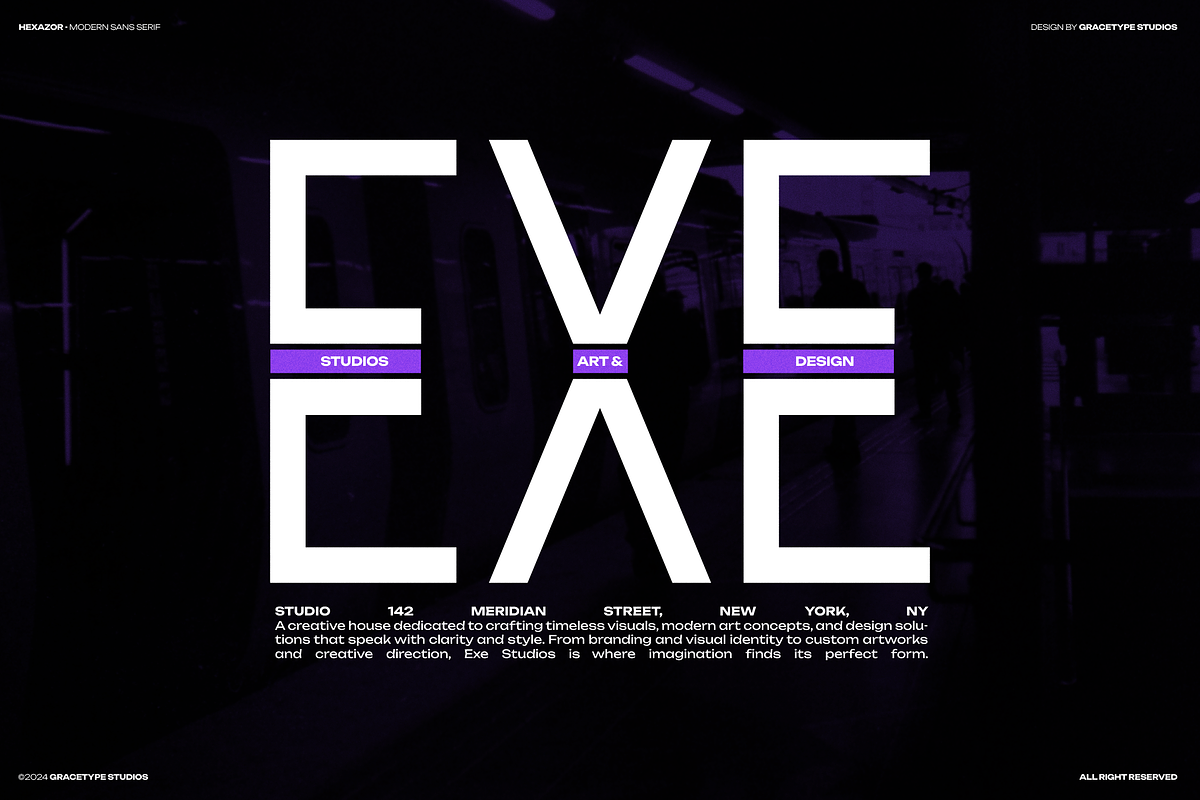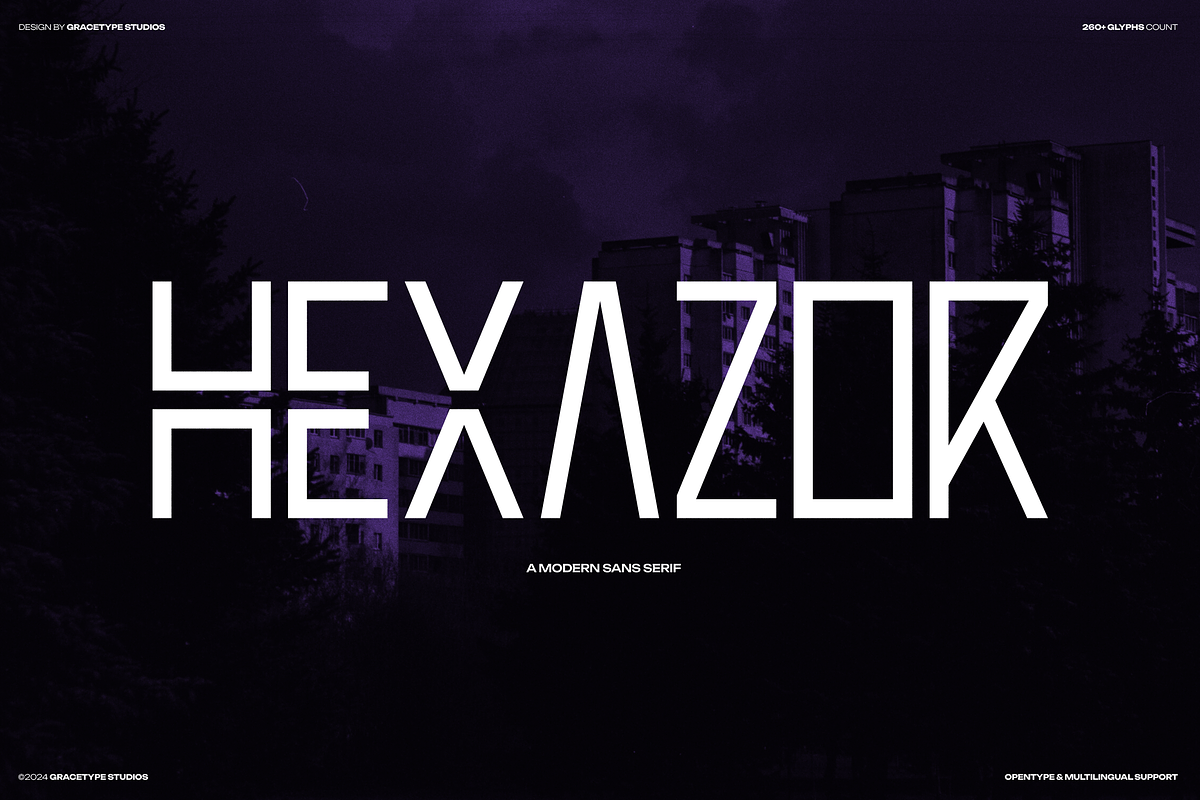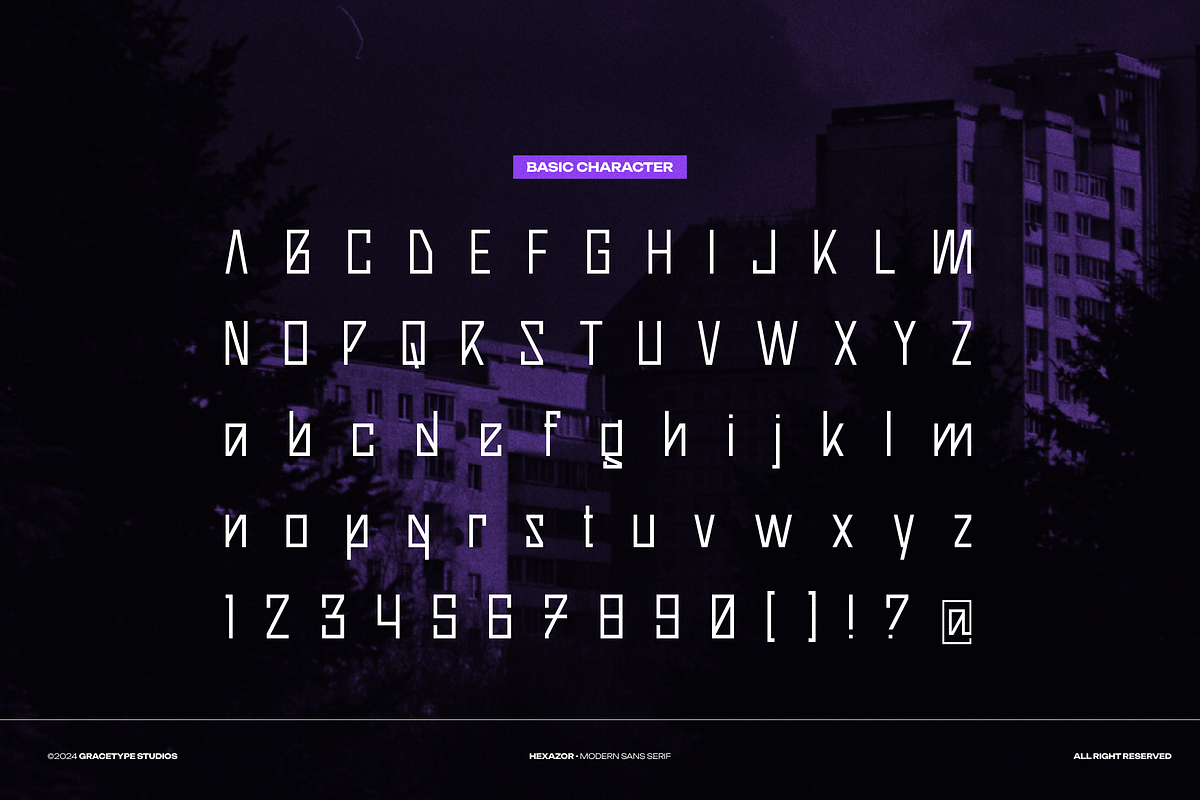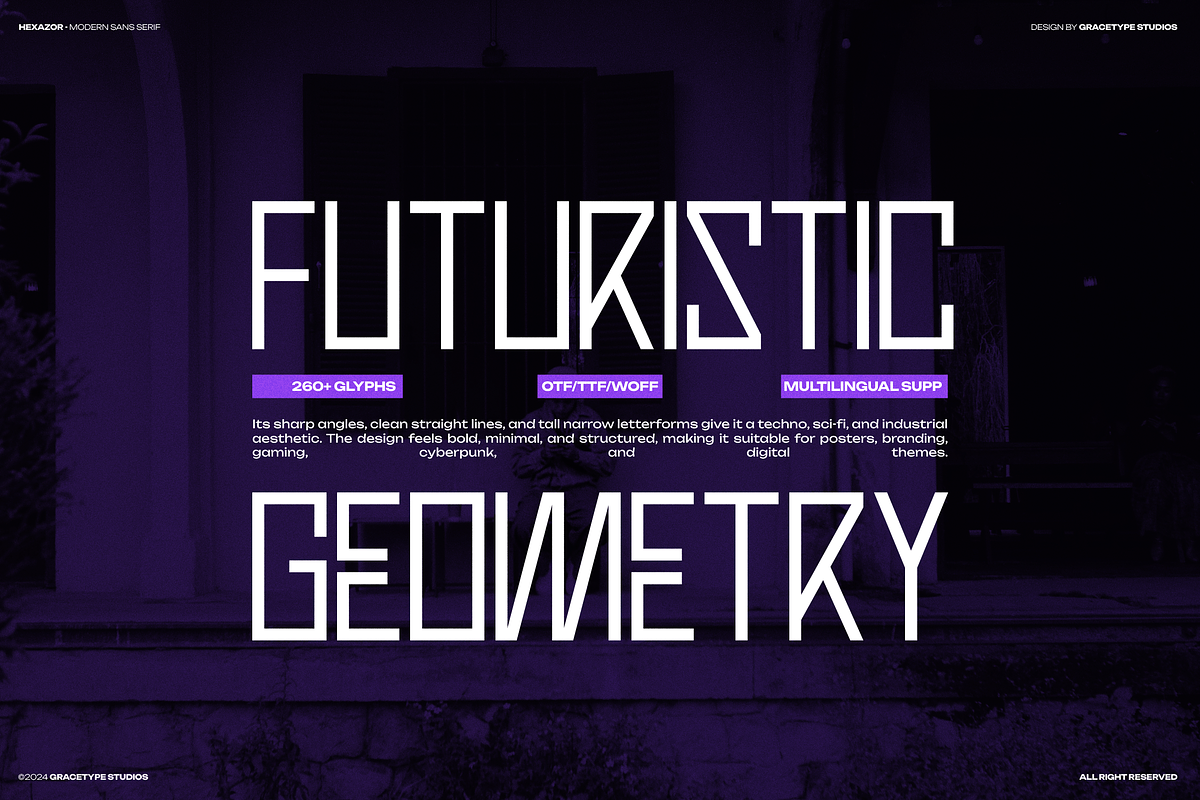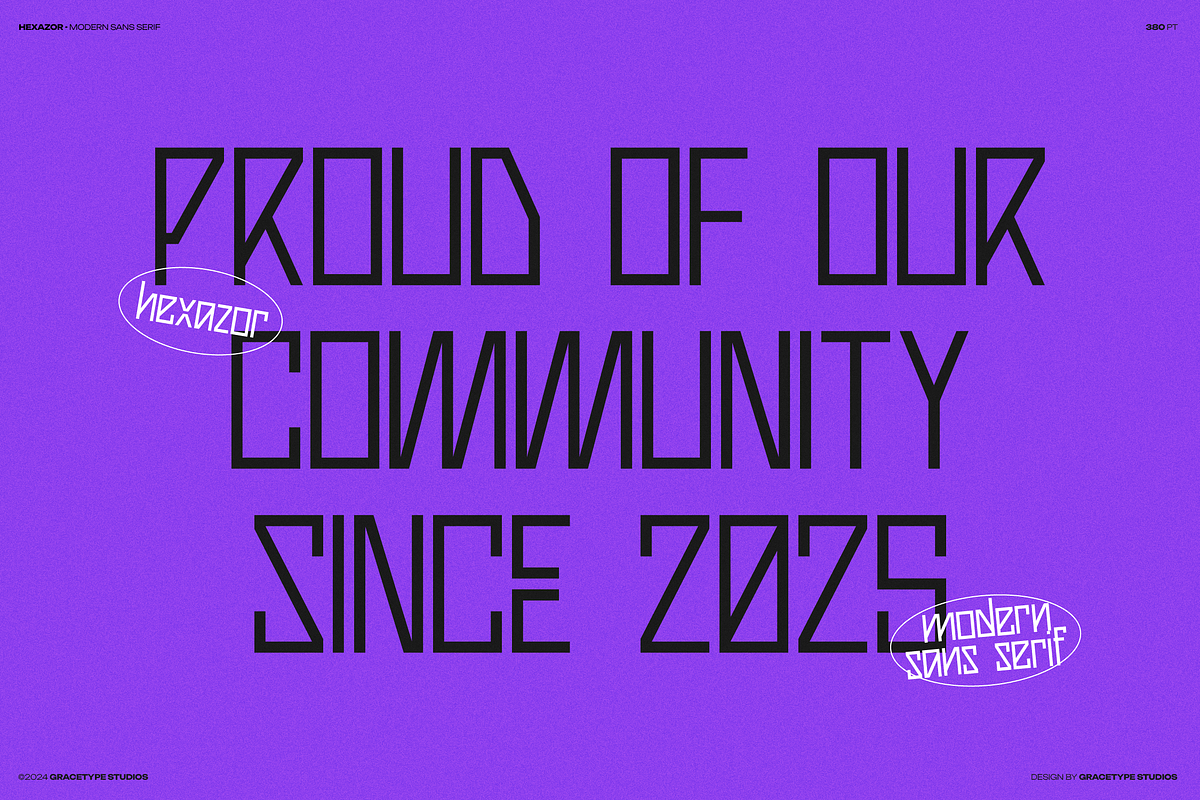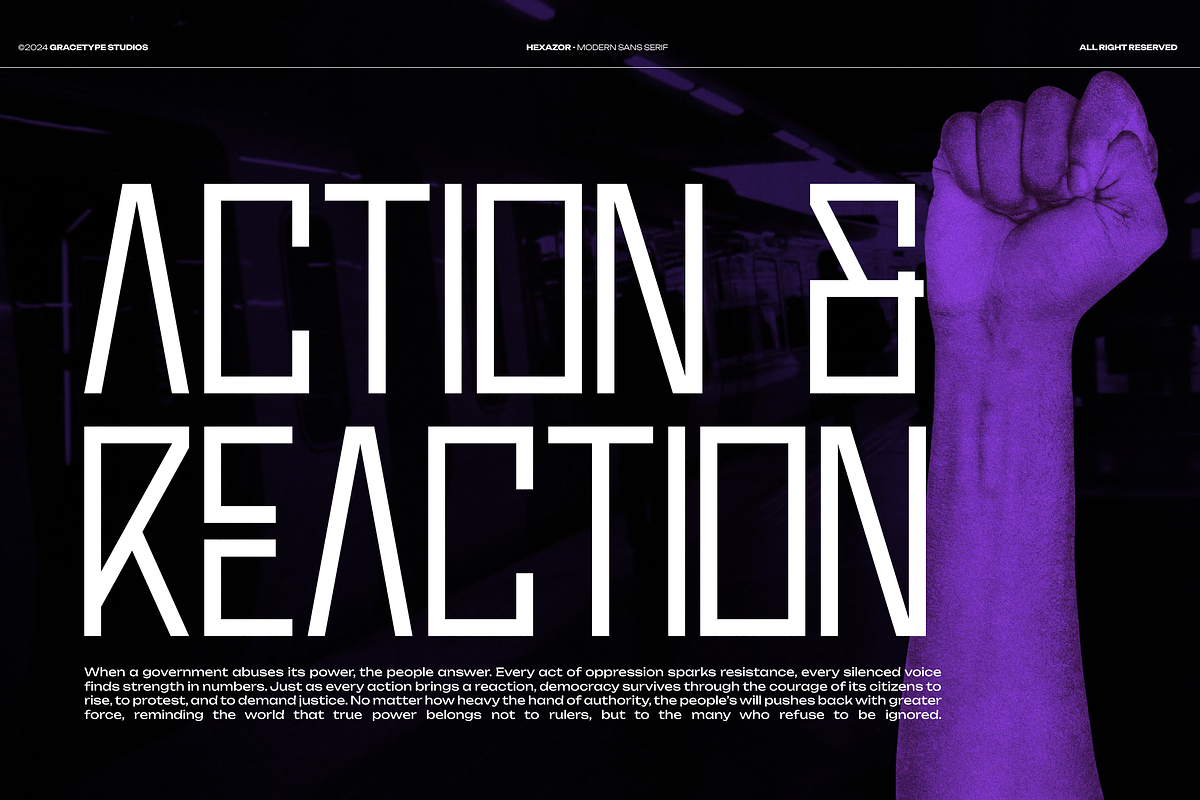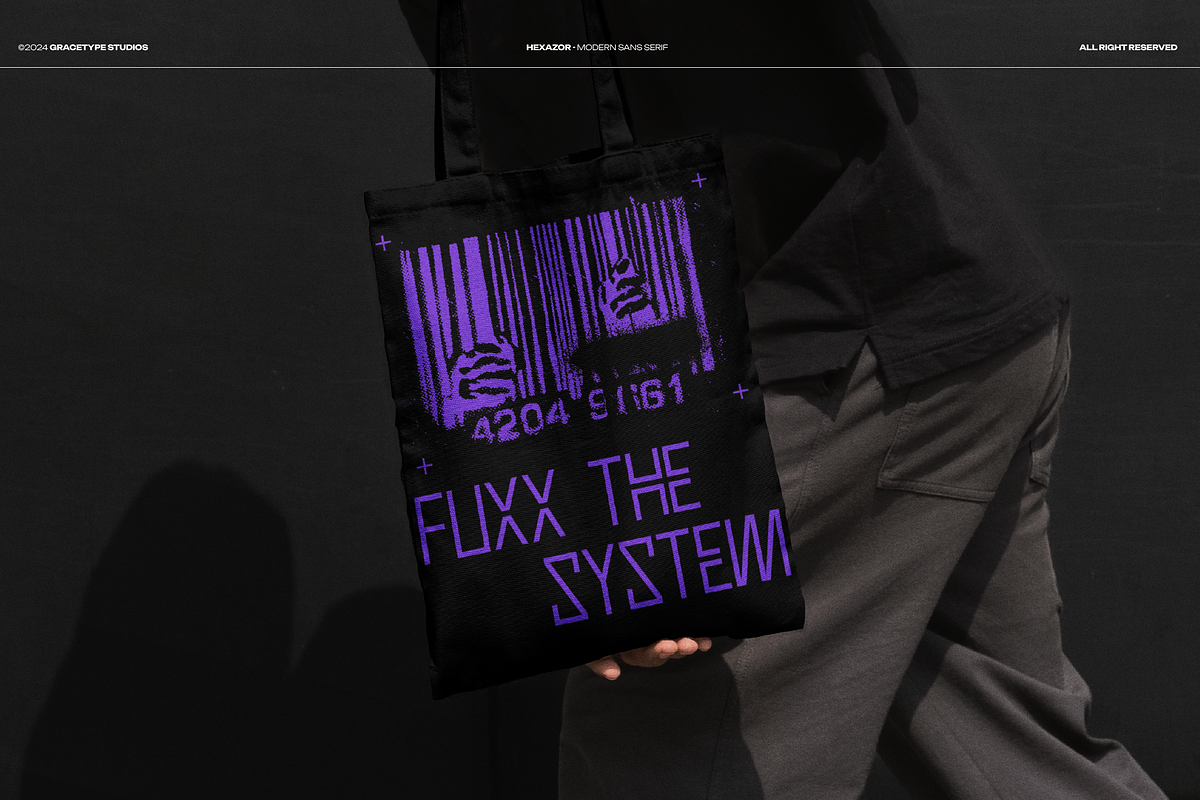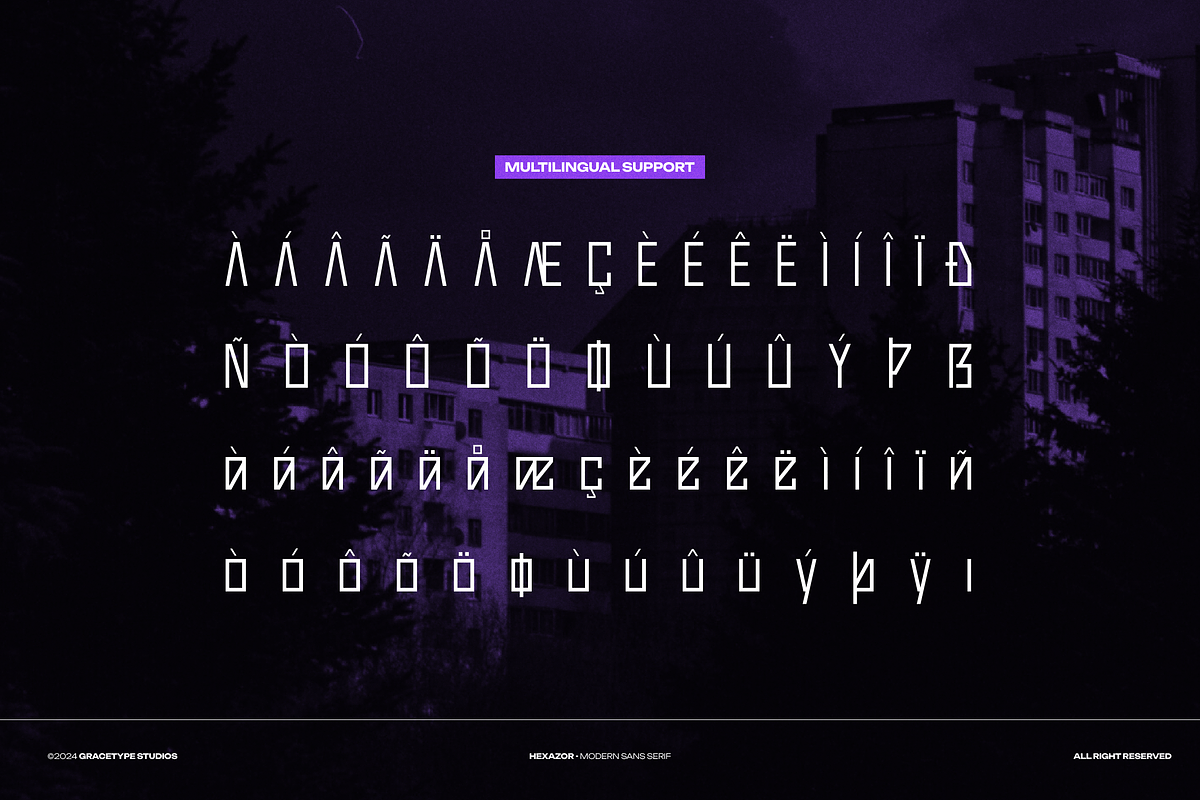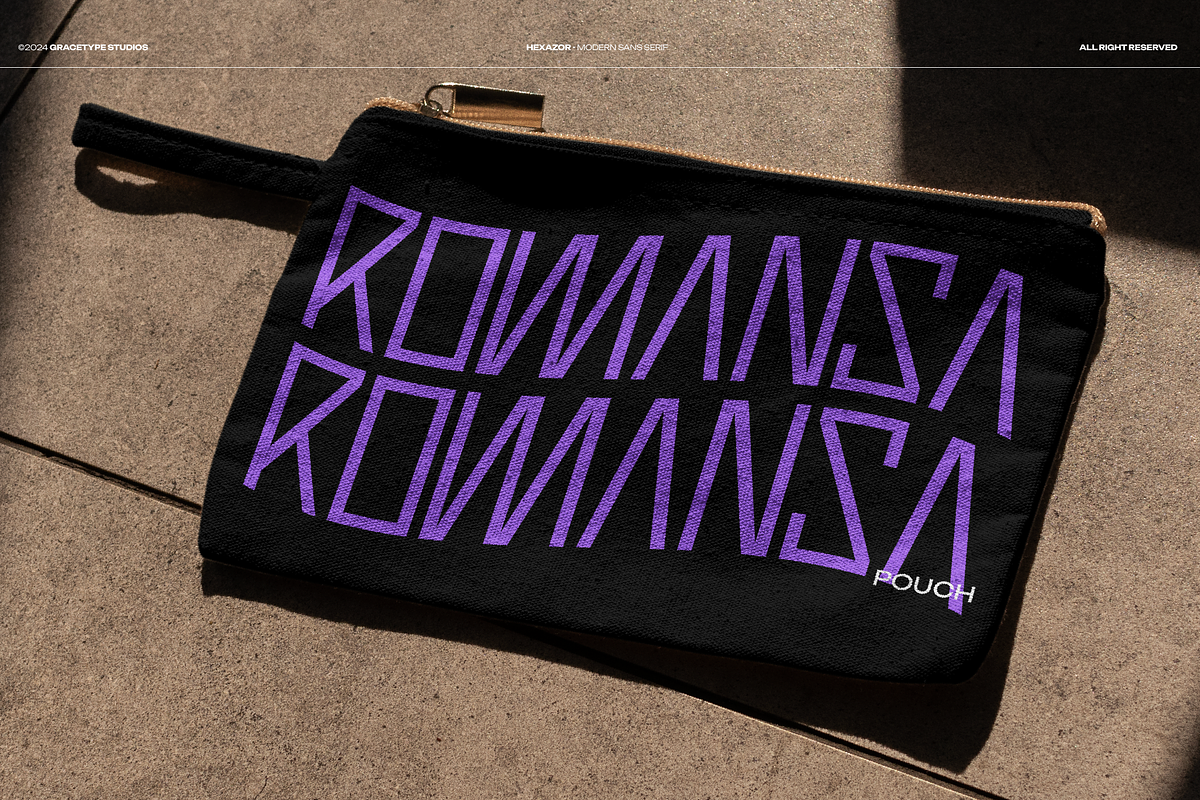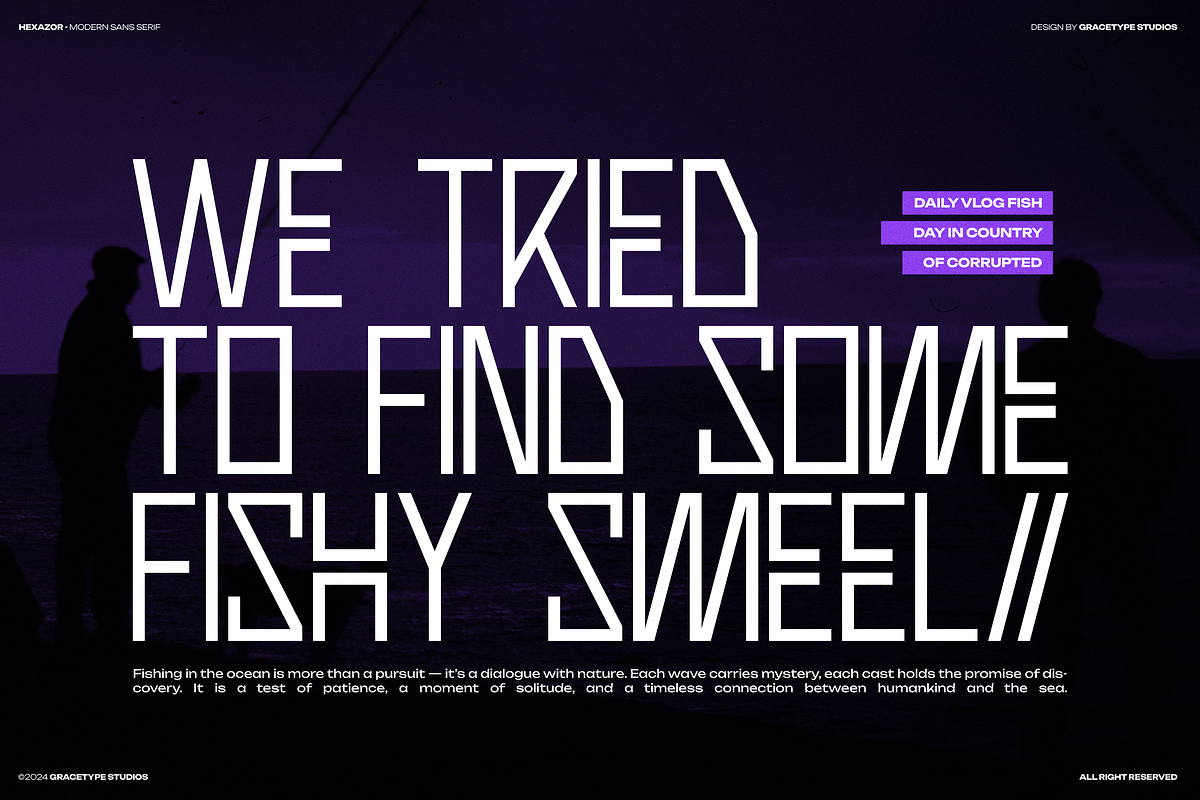
Hexazor | Modern Sans Serif
Hexazor | Modern Sans Serif, from Gracetypestudio, suitable for any projects such as: logos, branding projects, homeware designs, product packaging, mugs, quotes, posters, shopping bags, t-shirts, book covers, name card, invitation cards, greeting cards, label, photography, watermark, special events, and all your other lovely projects that need a Modern Sans Serif taste.